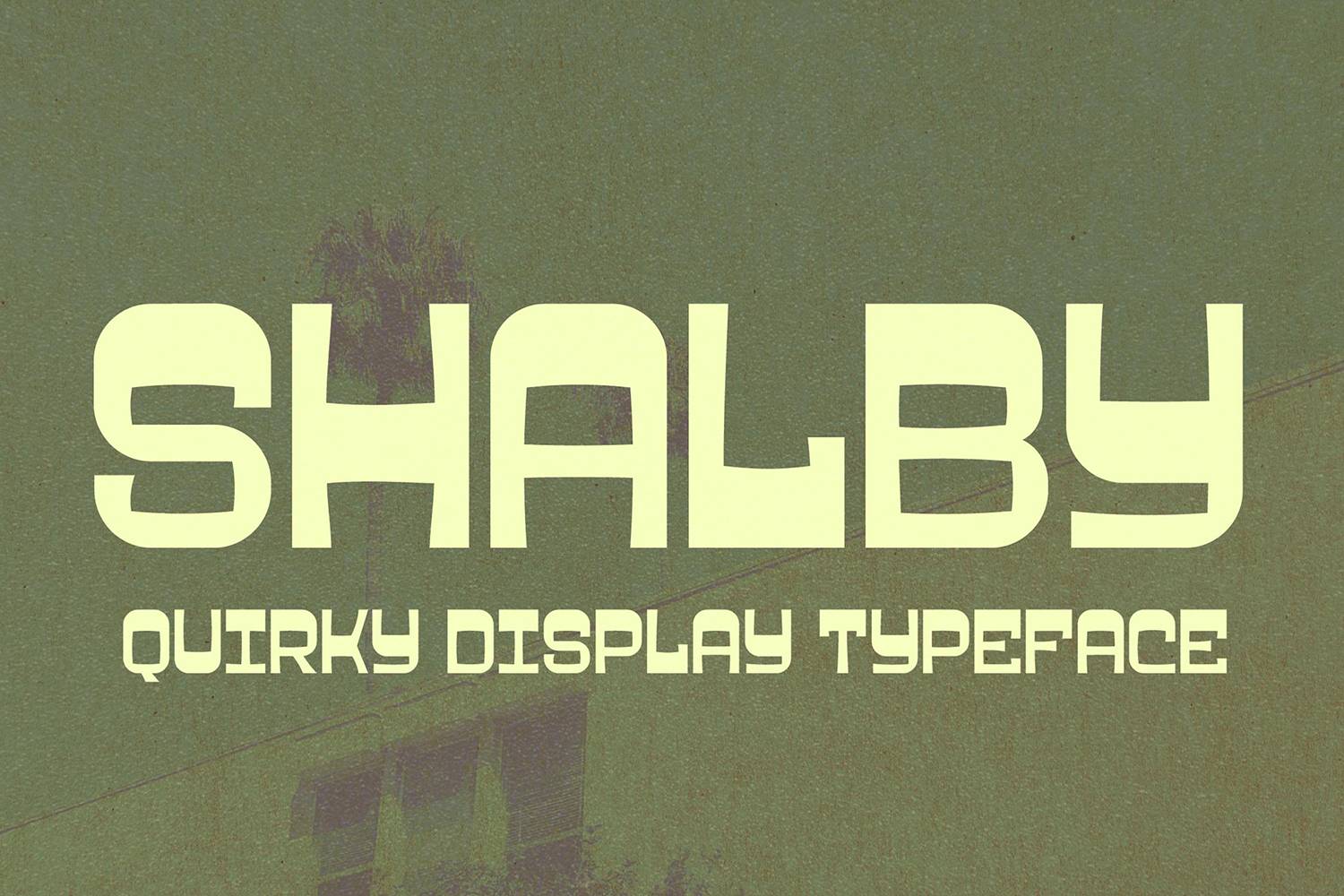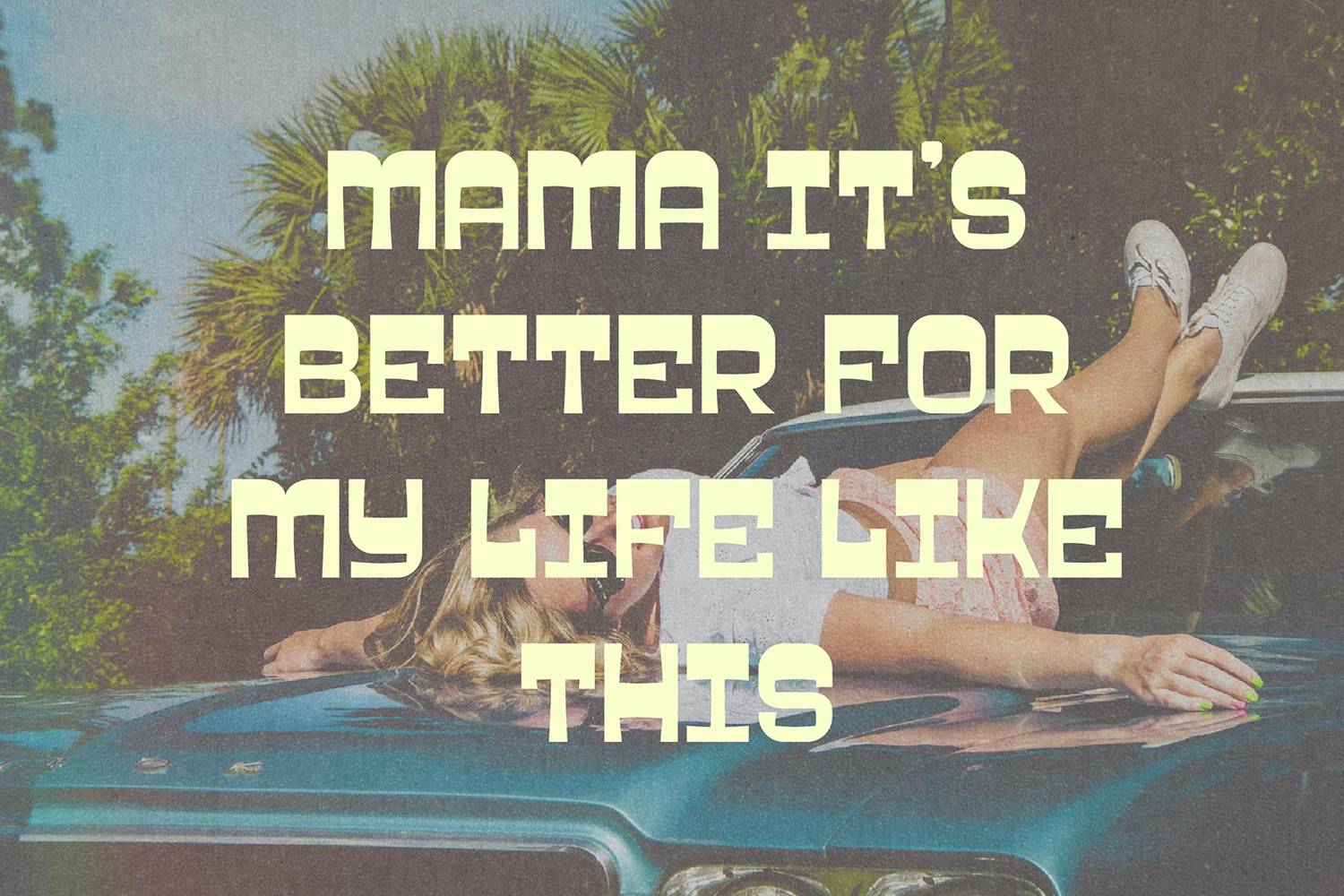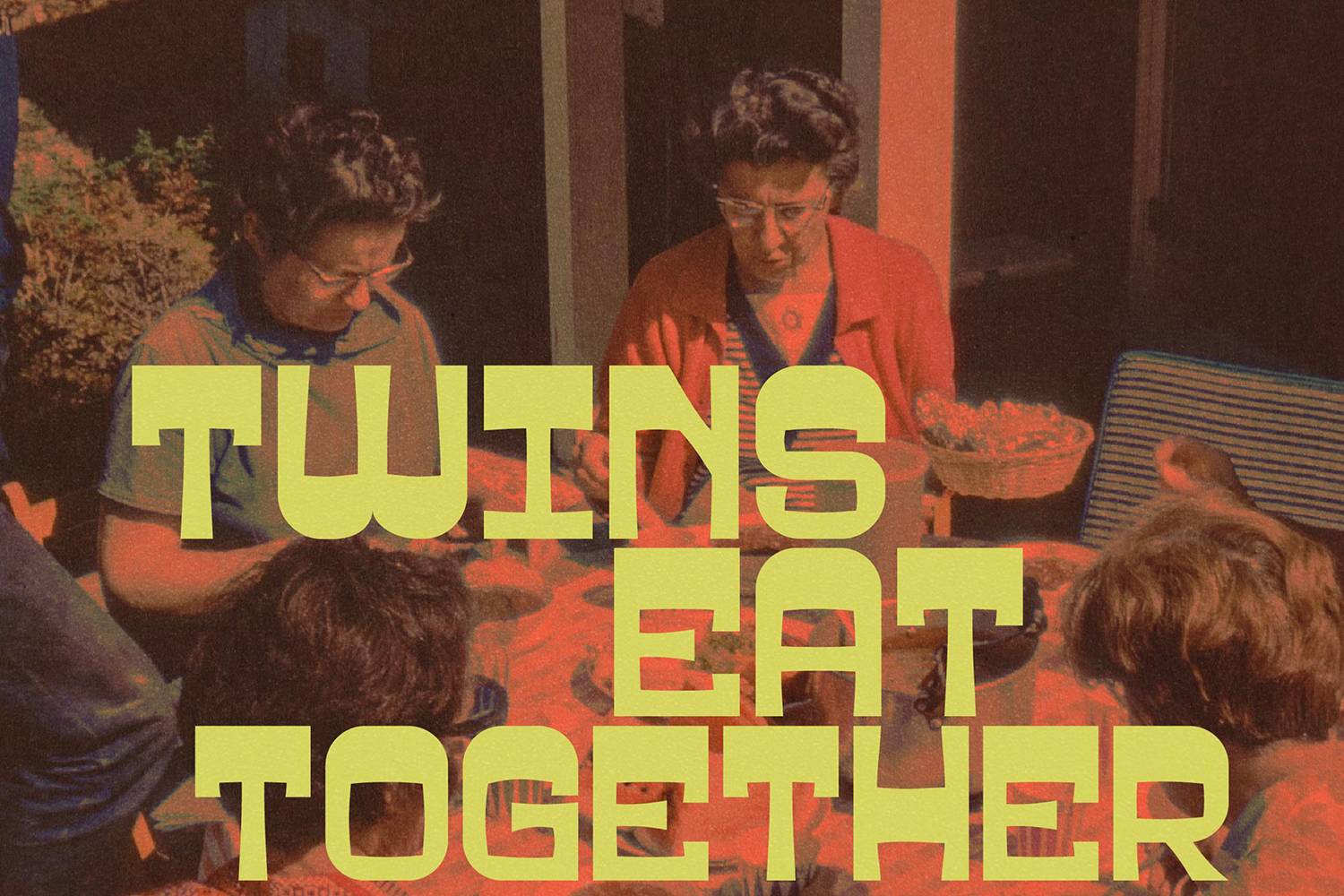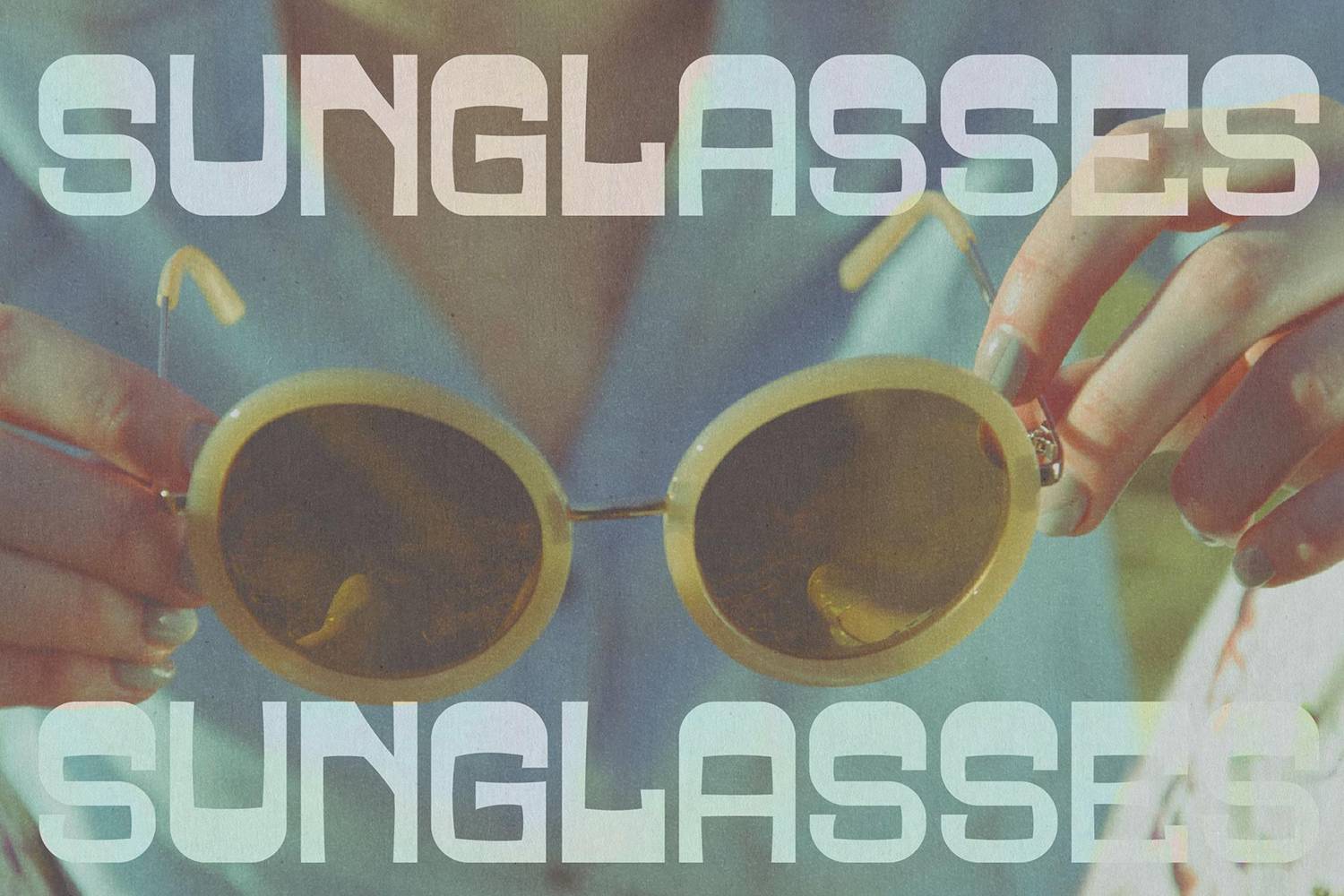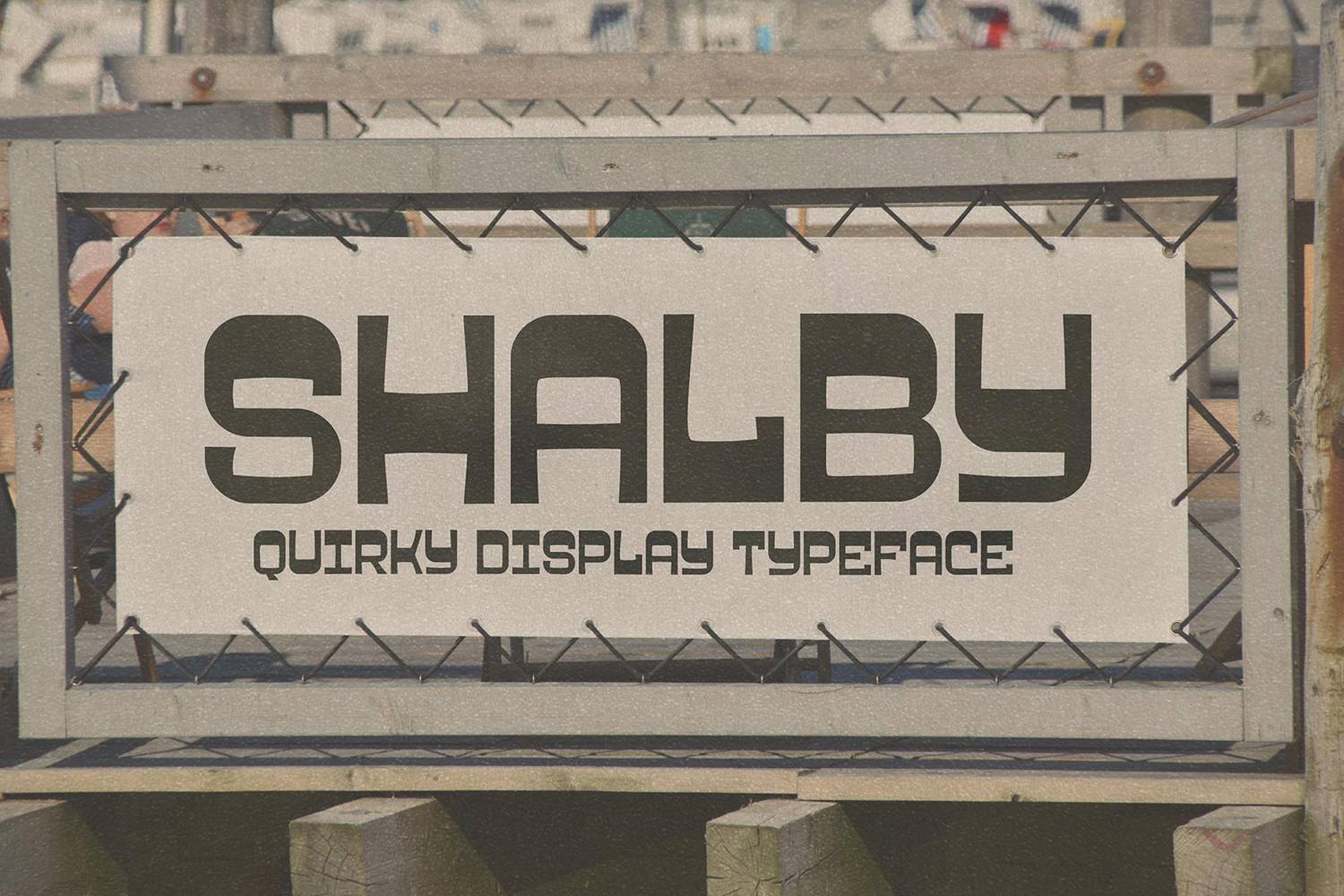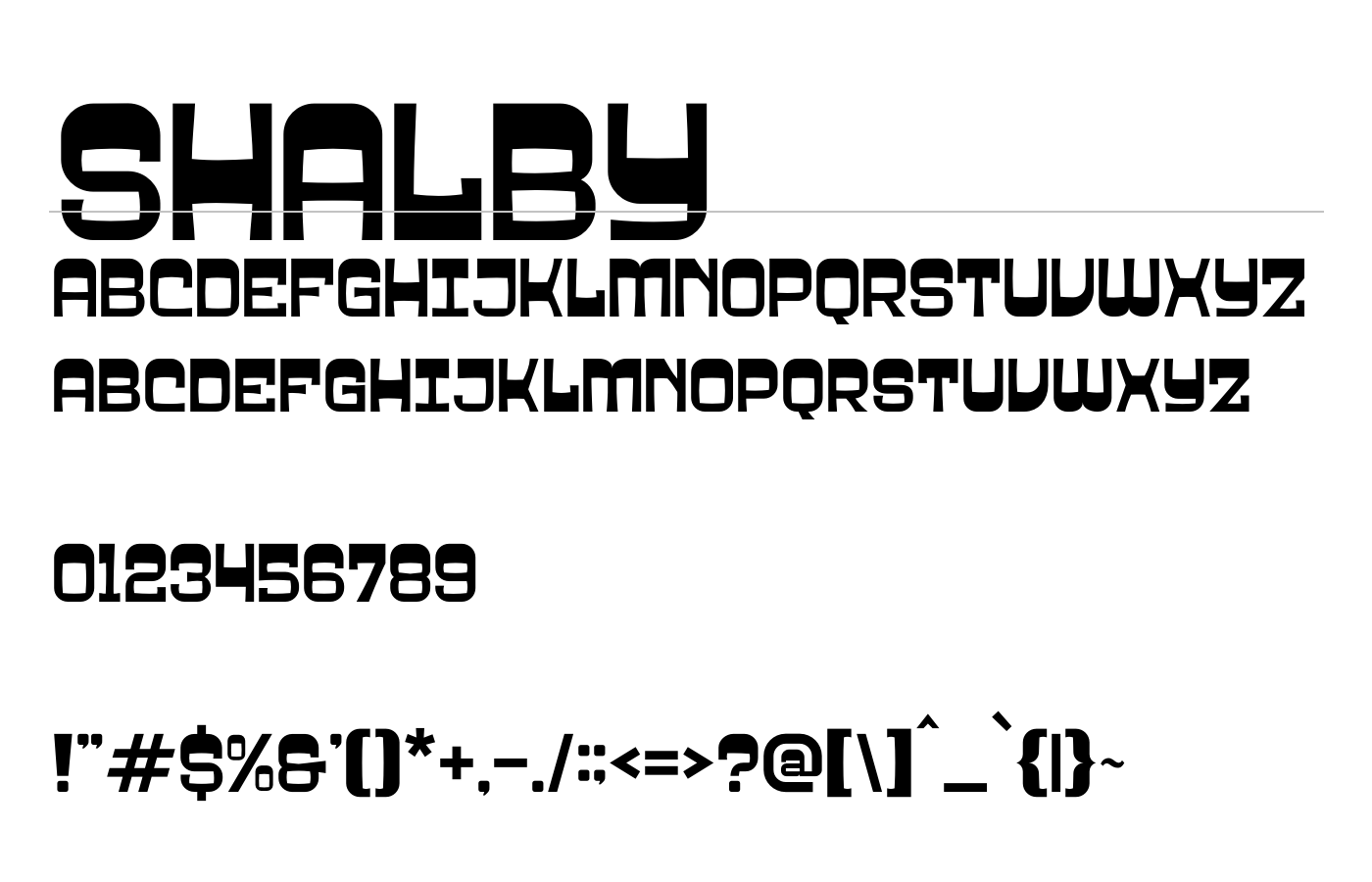
Shalby Font is a bold, geometric sans serif with a modern, slightly futuristic feel. Its strong, blocky letterforms feature minimal contrast and unique angular details, making it stand out for logos, headlines, and branding that aim to convey confidence and innovation. This font works best in display settings where its distinct, structured style can capture attention and add a dynamic edge.
Shalby Font
About Shalby Font